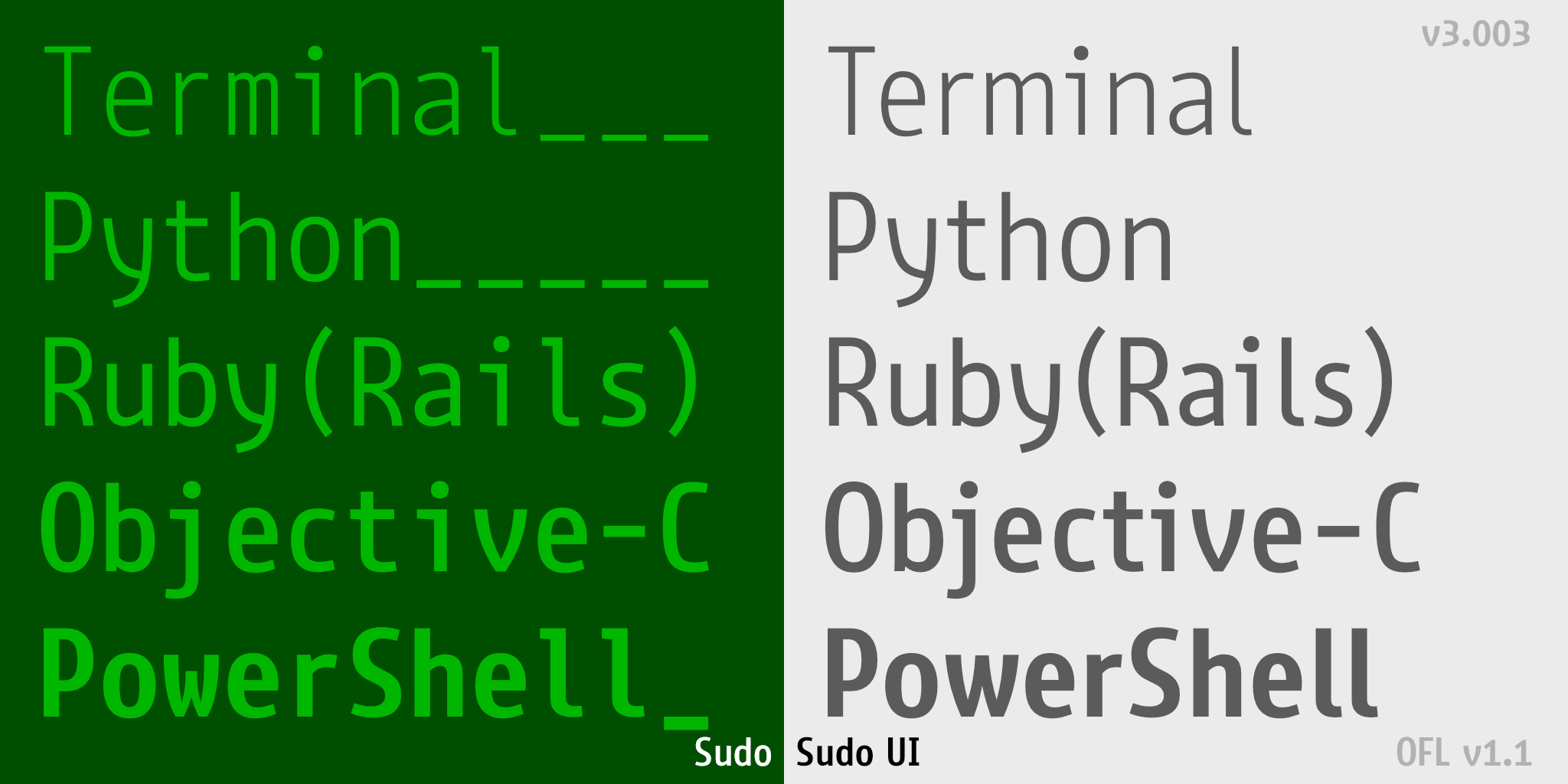
Sudo, a font for programmers and command line users.
Sudo is a font designed for terminals, programming, and user interfaces. Use at 13 pixels size for optimal results. It has a monospaced variant, simply called Sudo, and a proportional variant, called Sudo UI. A Variable Font version is available. It has an extra variation axis to modify the length of descenders.
Sudo decidedly has no ligatures, but supports all common Powerline glyphs out of the box.
Sudo was designed by Jens Kutílek, a graphic and type designer and font engineer based in Berlin.